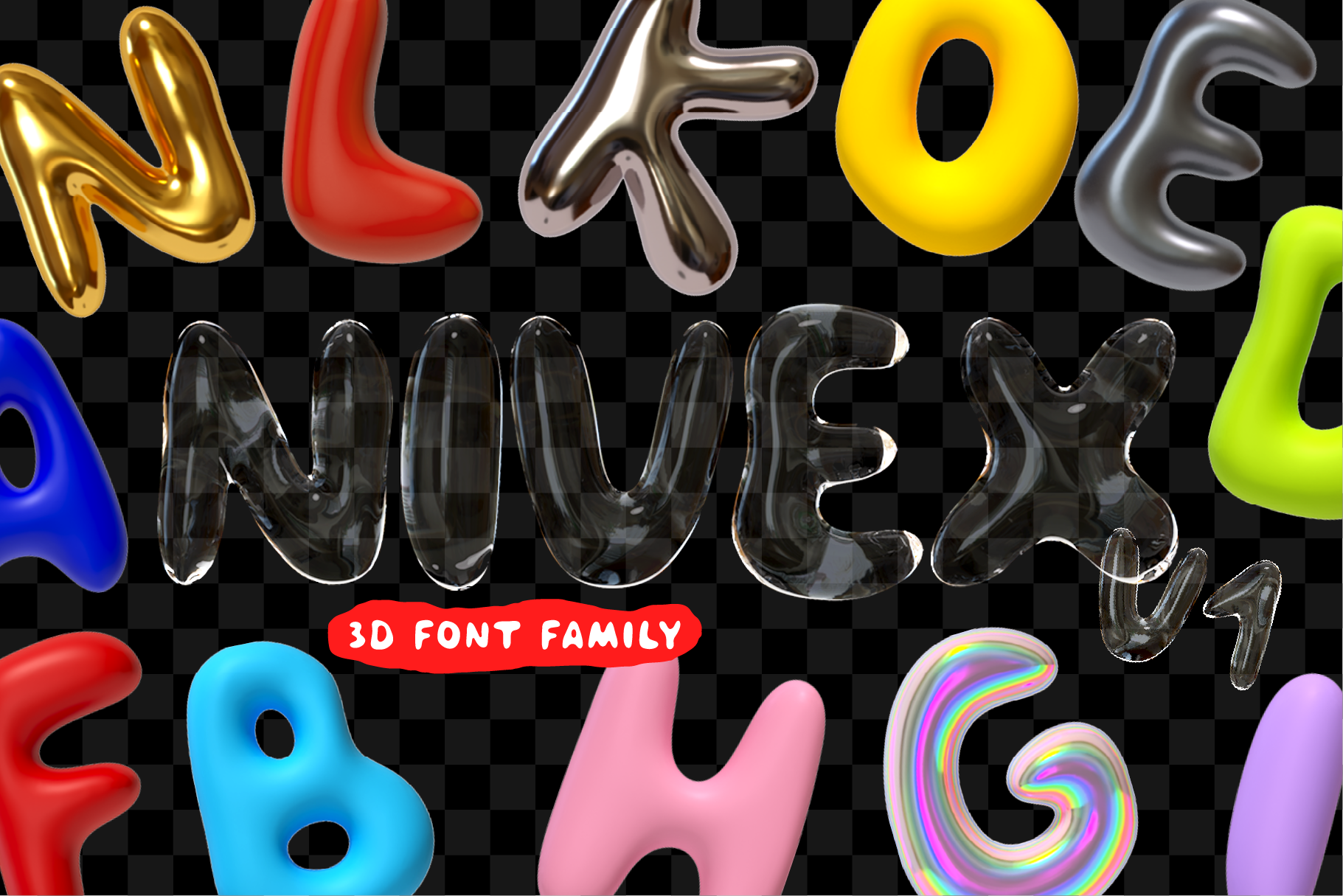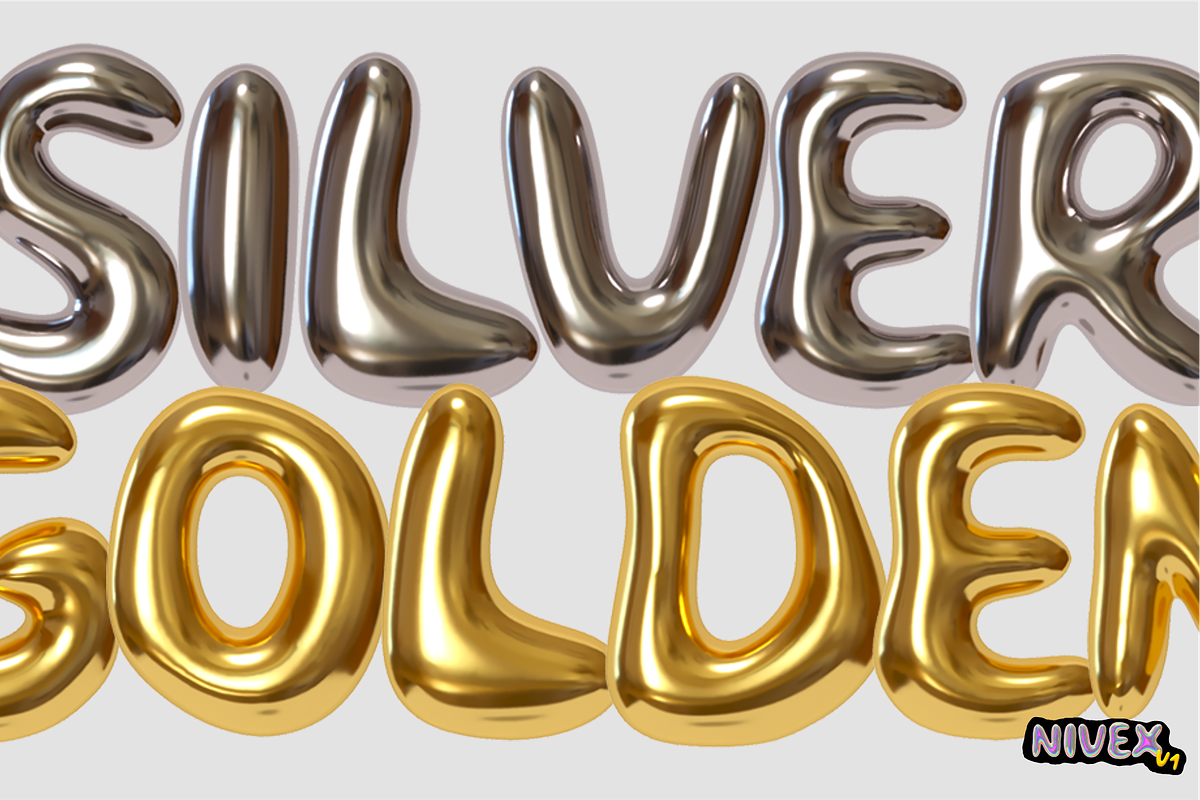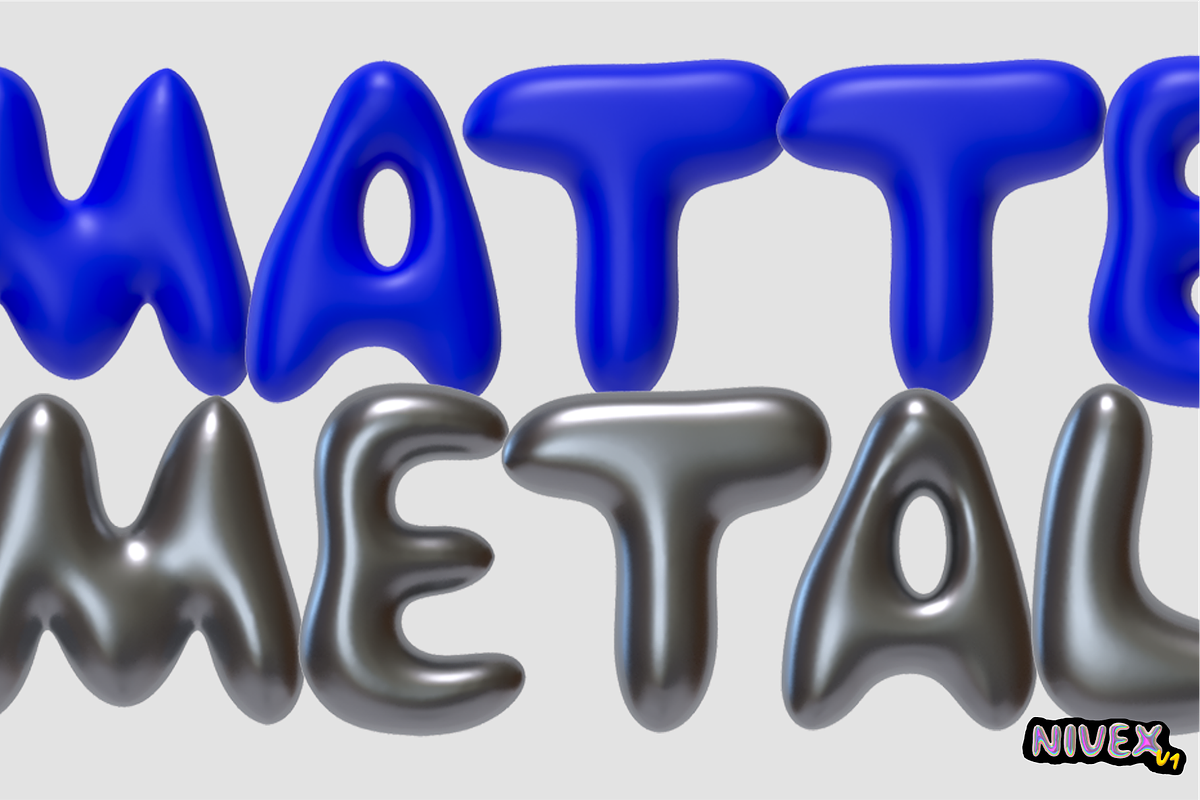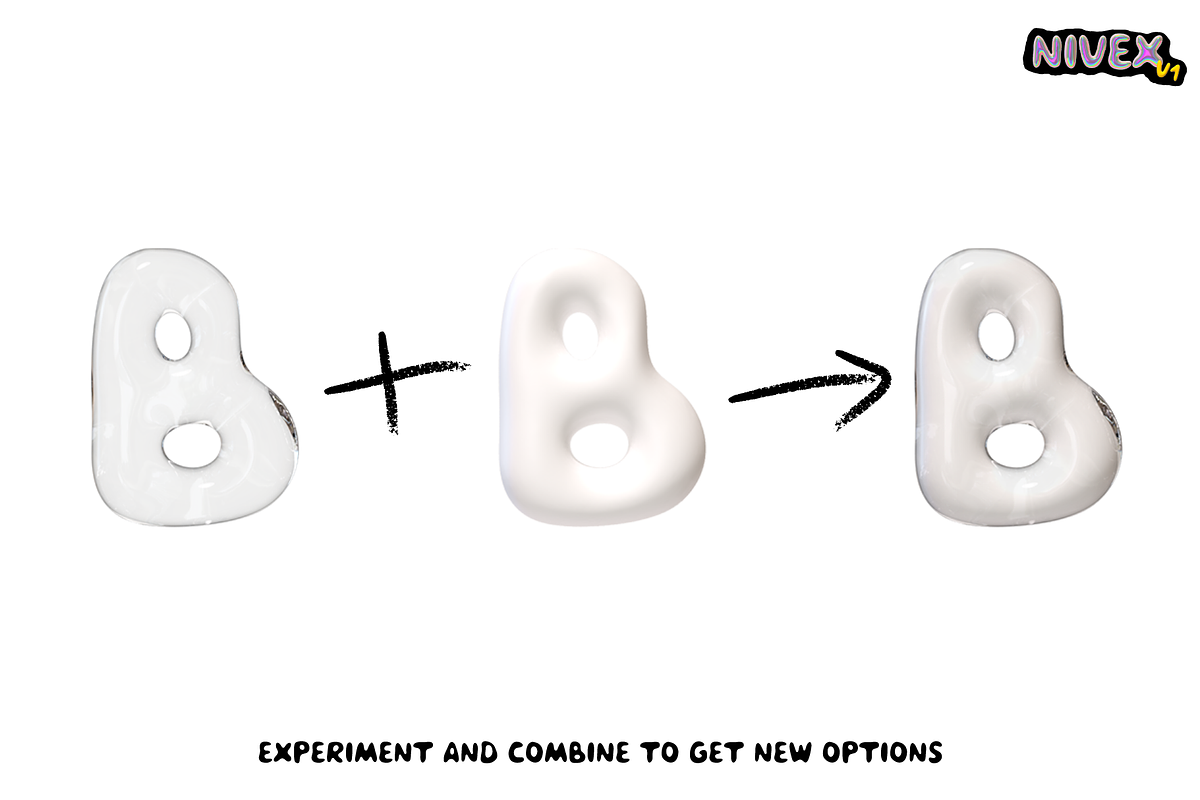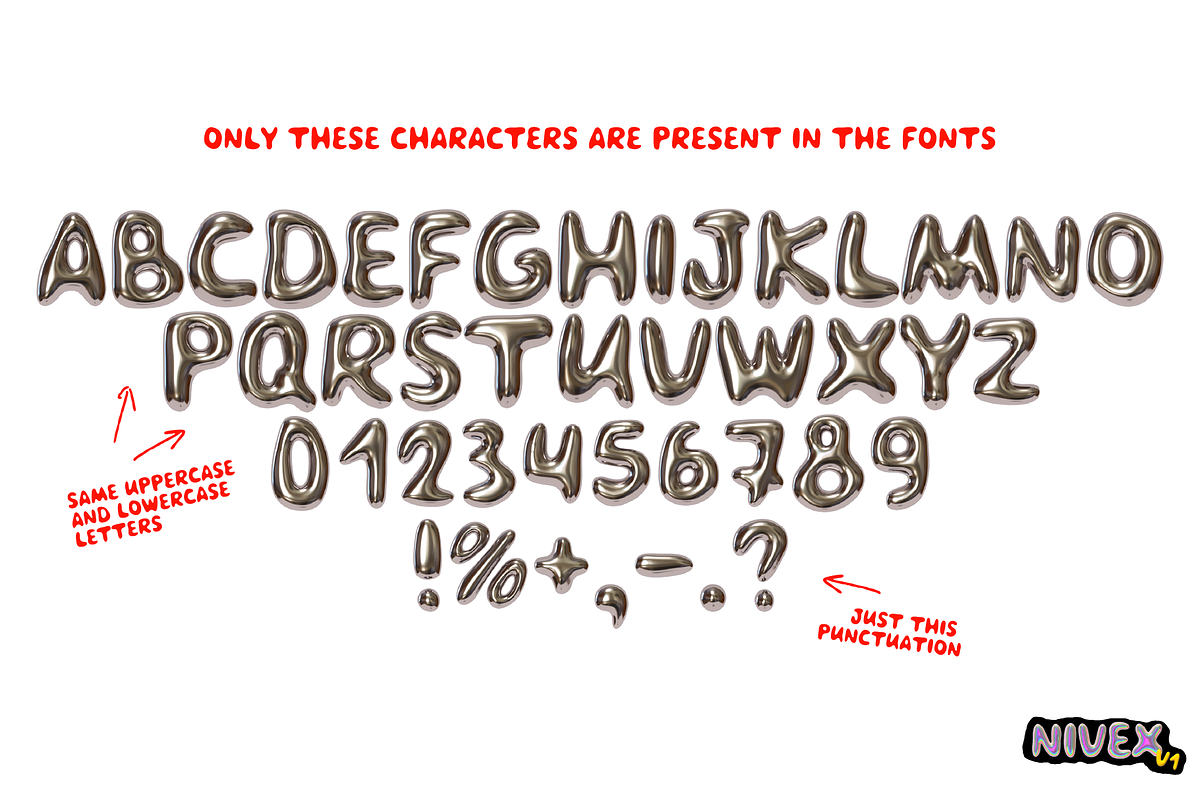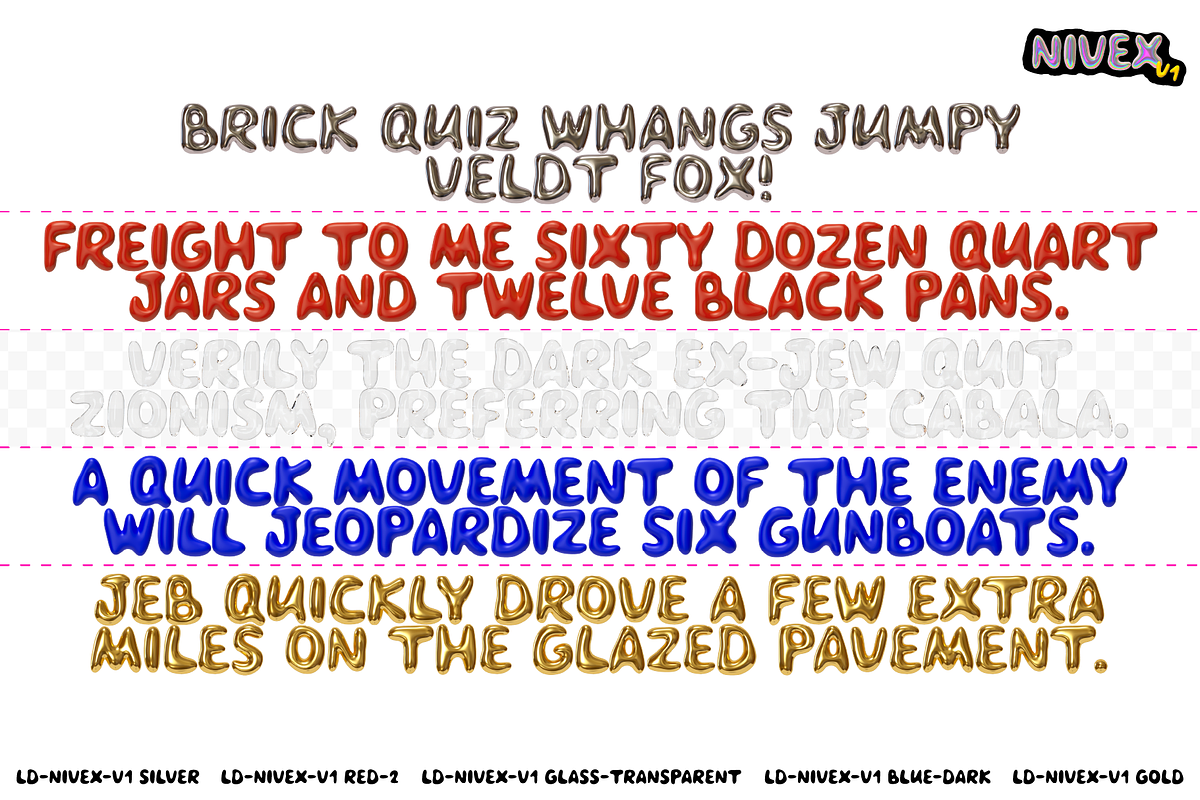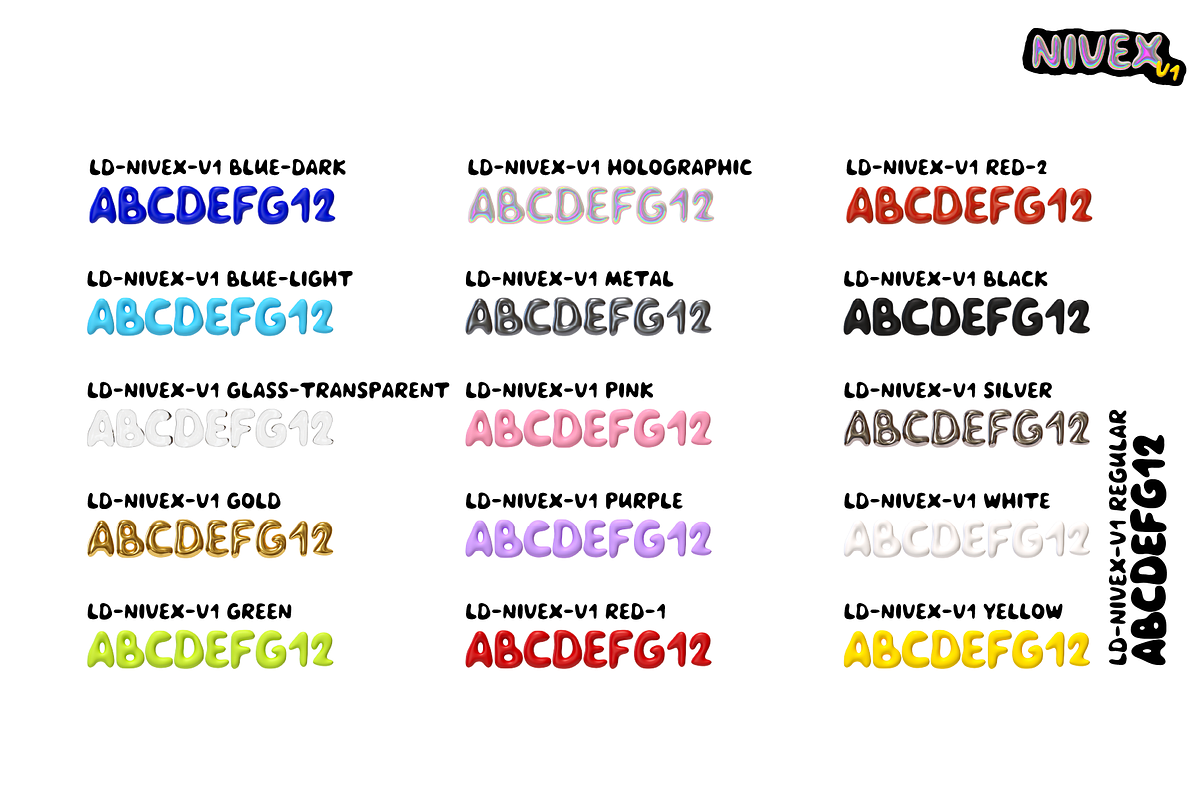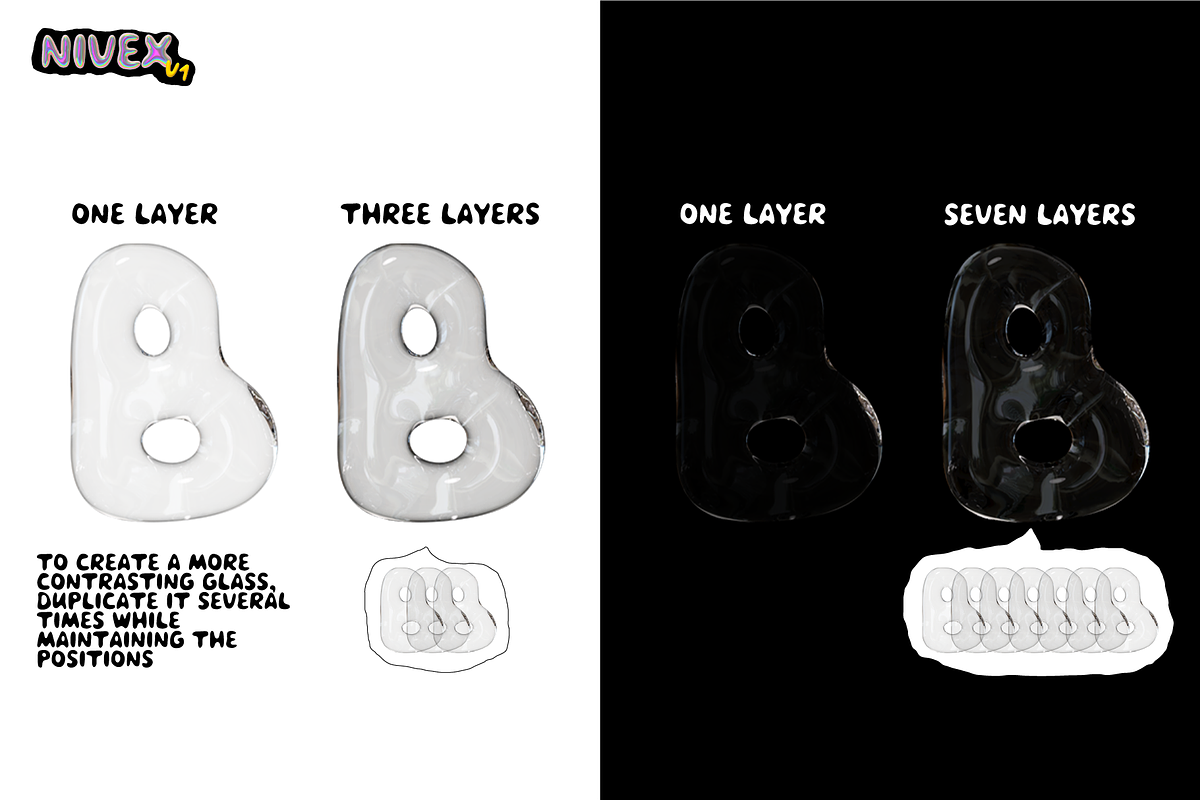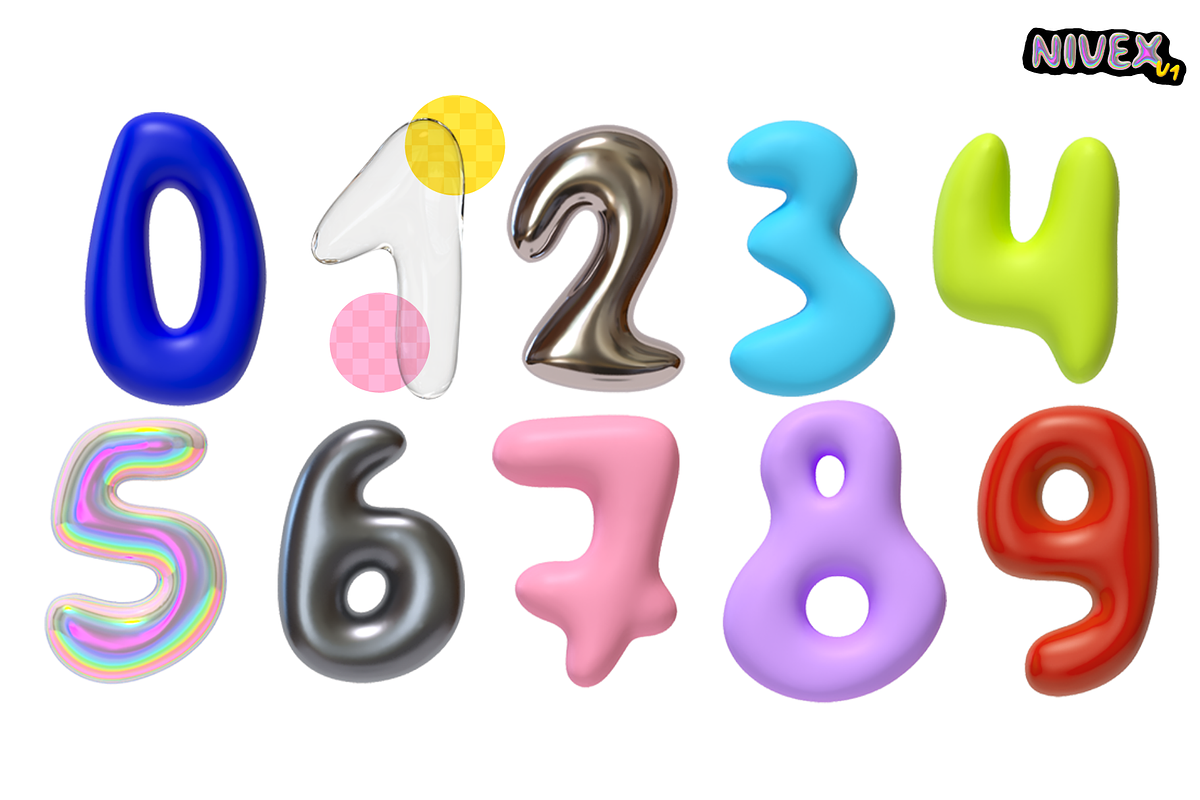
NIVEX V1. 3D OTF SVG Font Realistic.
Amazing various of 3D fonts in one Nivex V1 family. Super realistic visual appearance of letters in different materials and colors. Great for creating discount marketing offers.
Real 3D effect
Different colors
Matte, Metal & Glass transparent material
Uppercase and lowercase letters are the same
Kerning